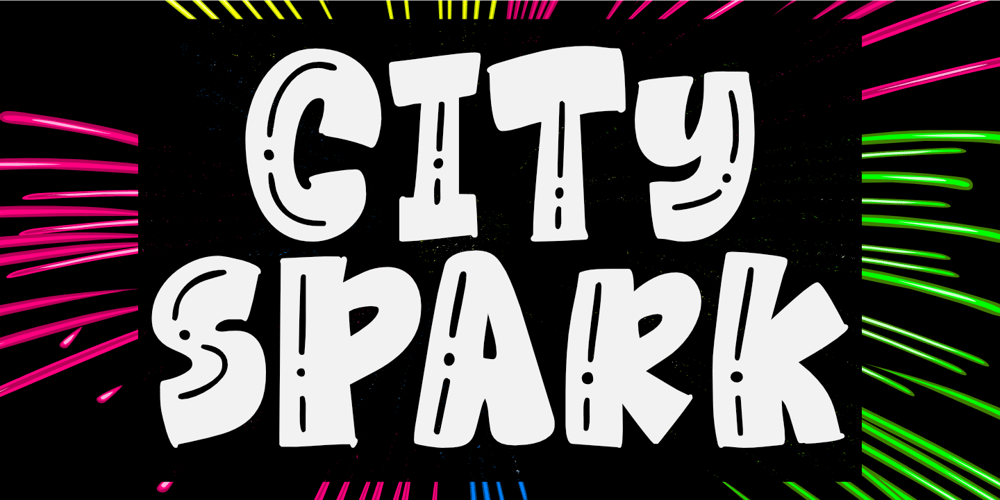
City Spark Font Family was designed by Nurul Hidayani and published by Olivetype. City Spark contains 1 styles and family package options. Looking for a font that’s fun and expressive? Look no further than City Park! This playful hand-lettered font is a good option for posters, headlines, logotypes, product packaging, movie titles, and more. With its unique character and charm, City Park can make your next project stand out from the crowd.City Park font includes : Standard Latin Uppercase and Lowercase Numbers, symbols, and punctuations Multilingual Support. Cheers